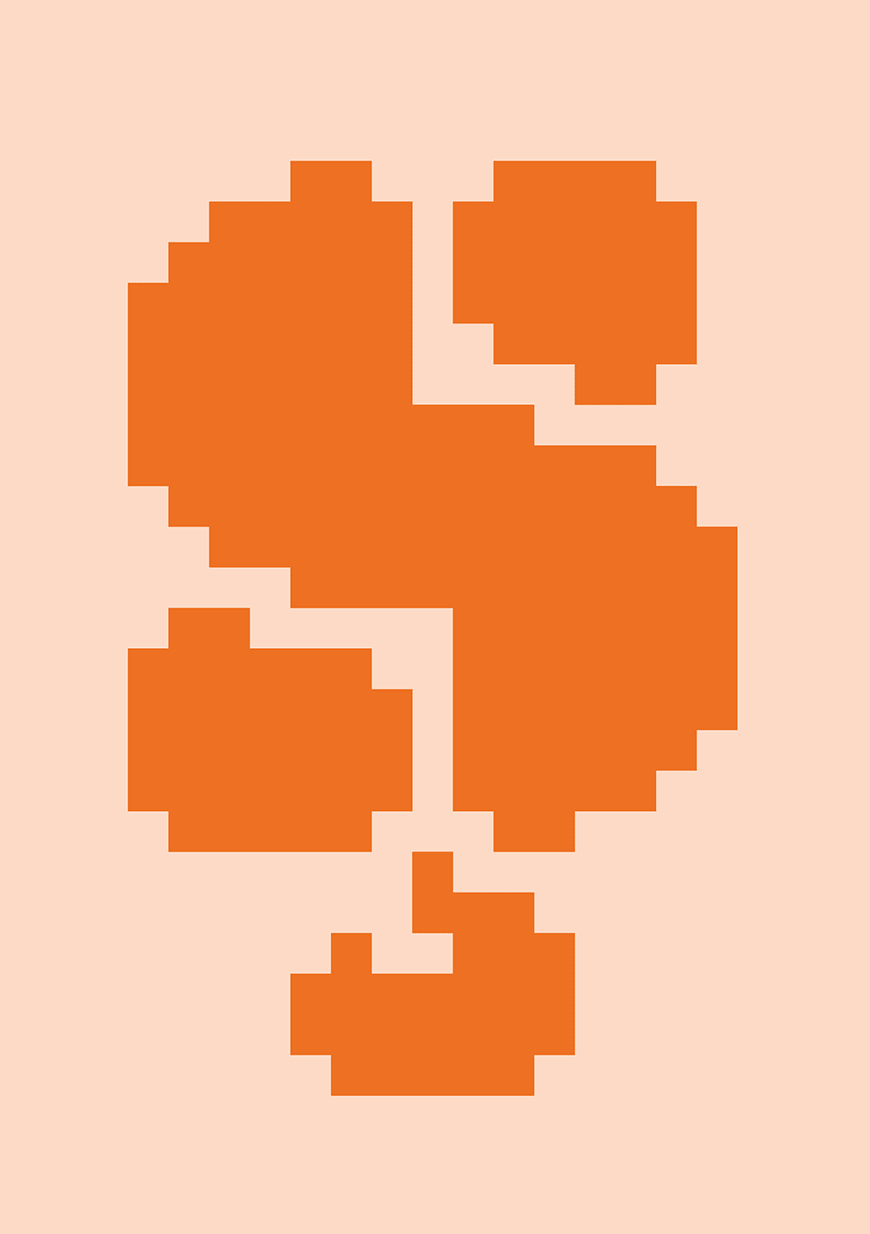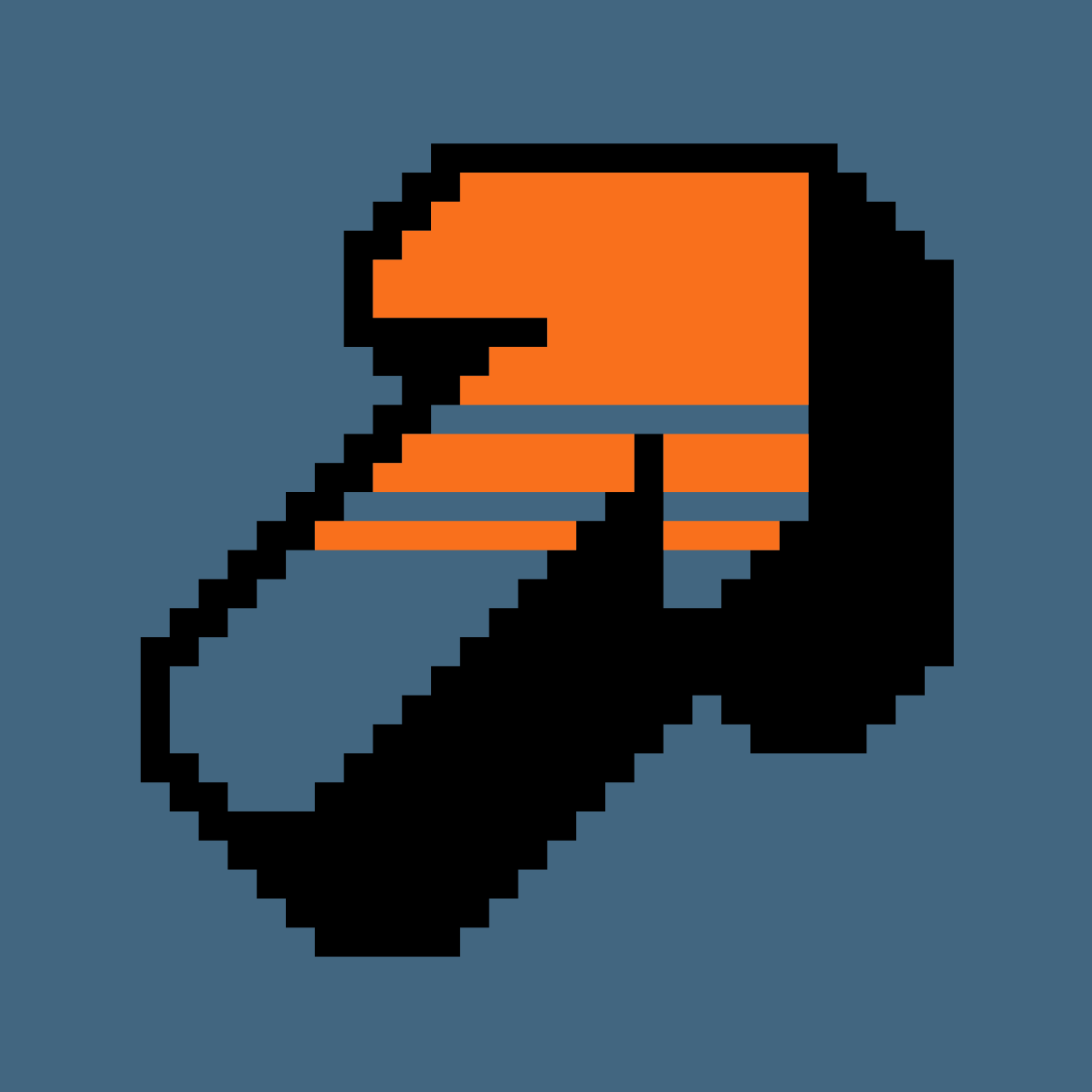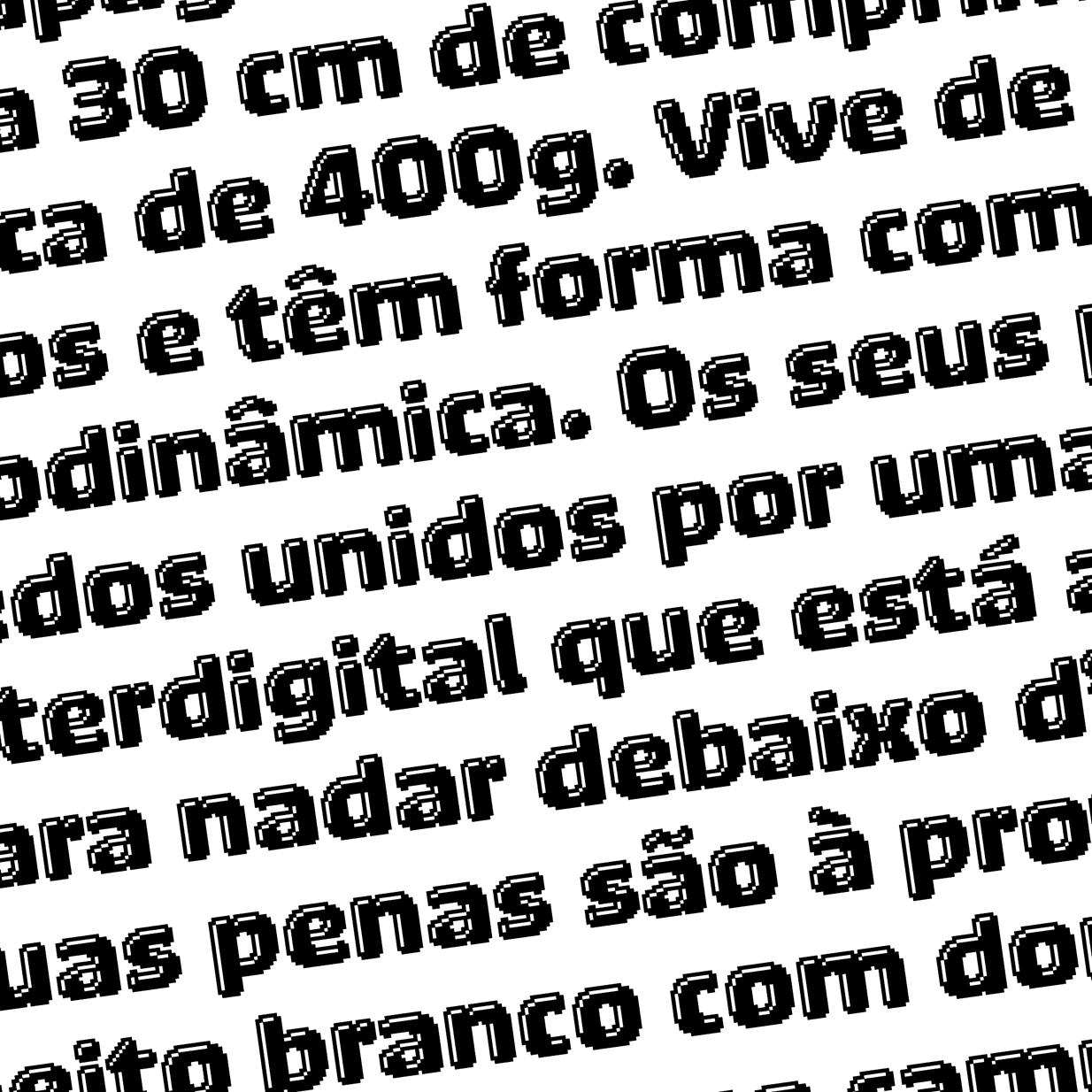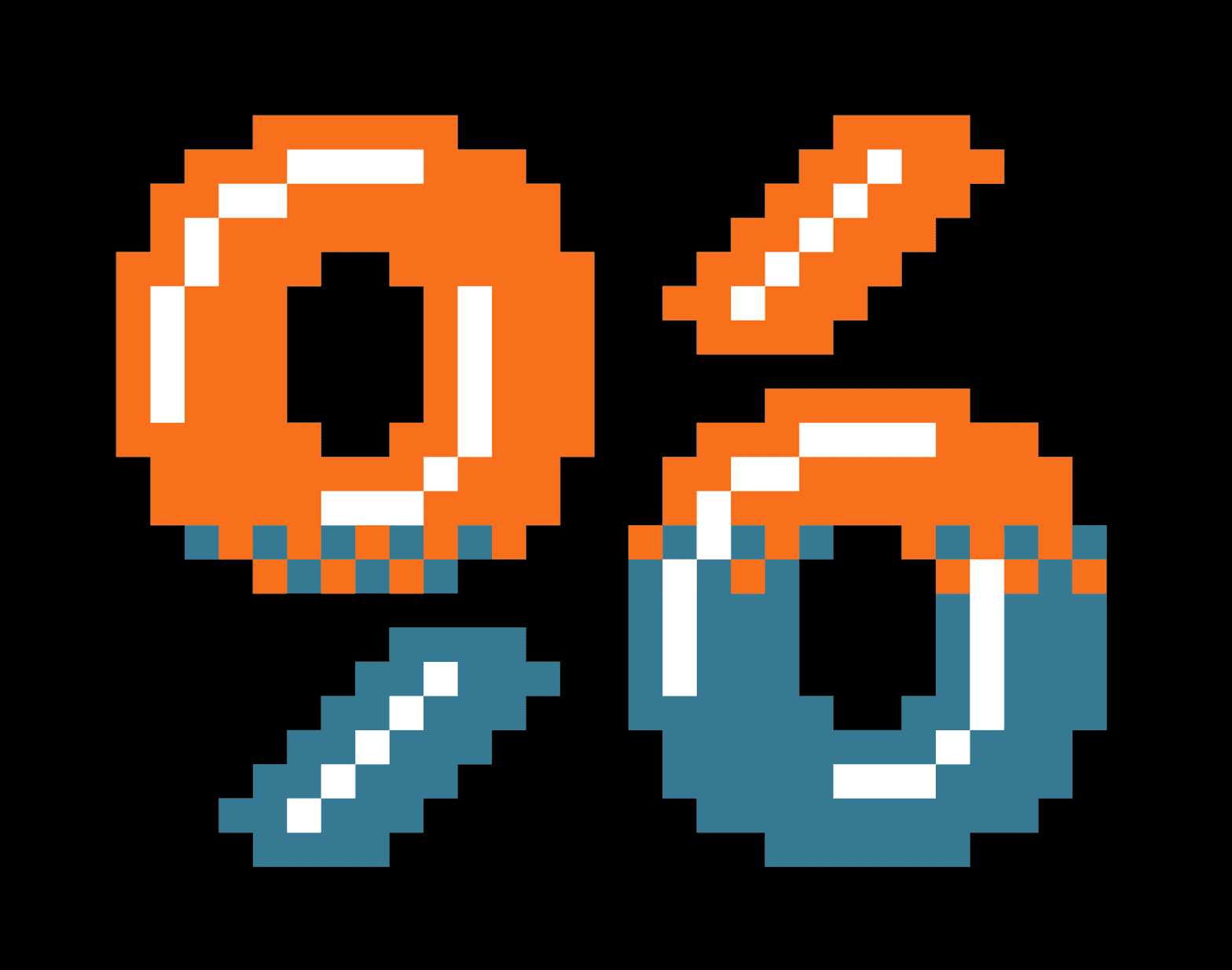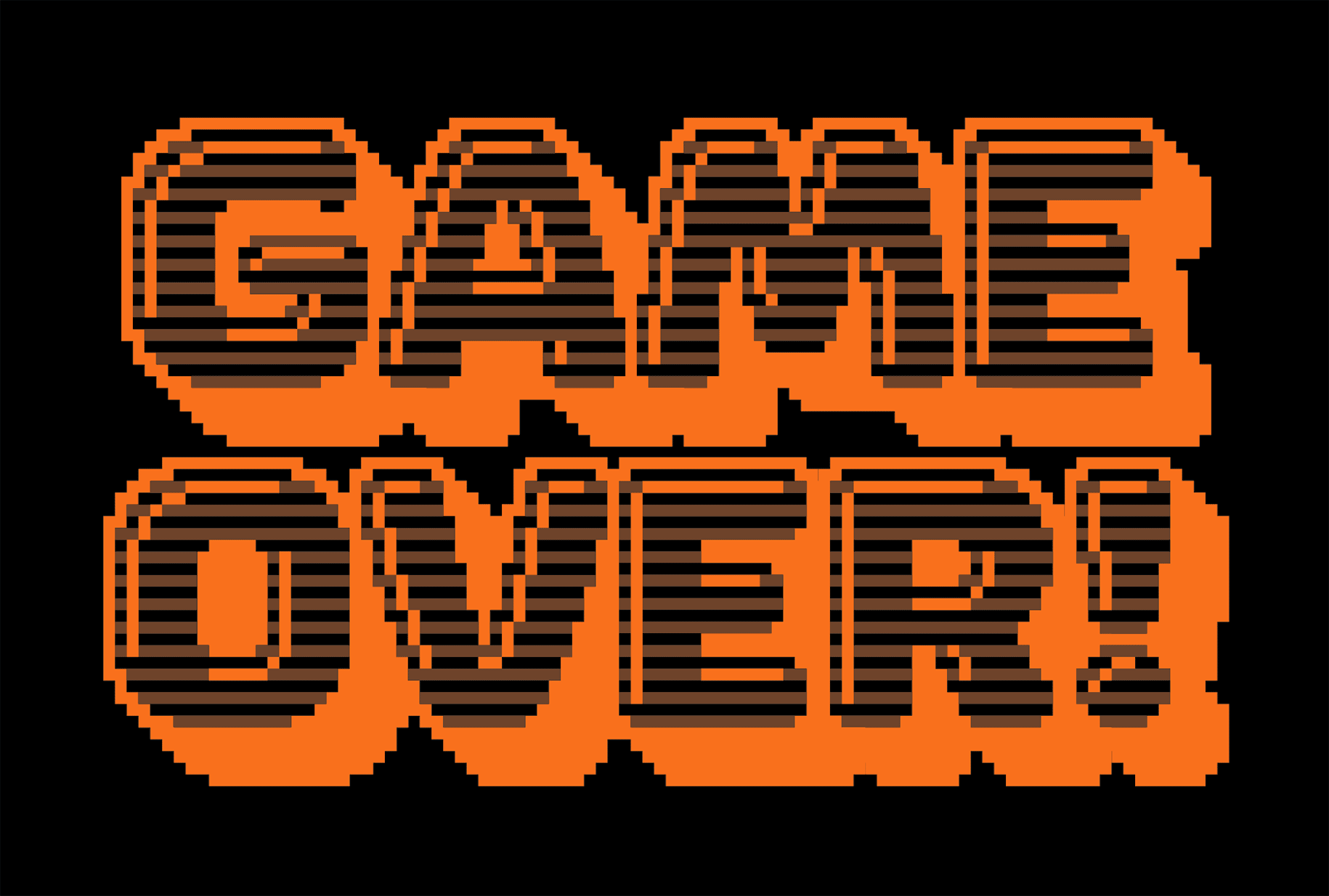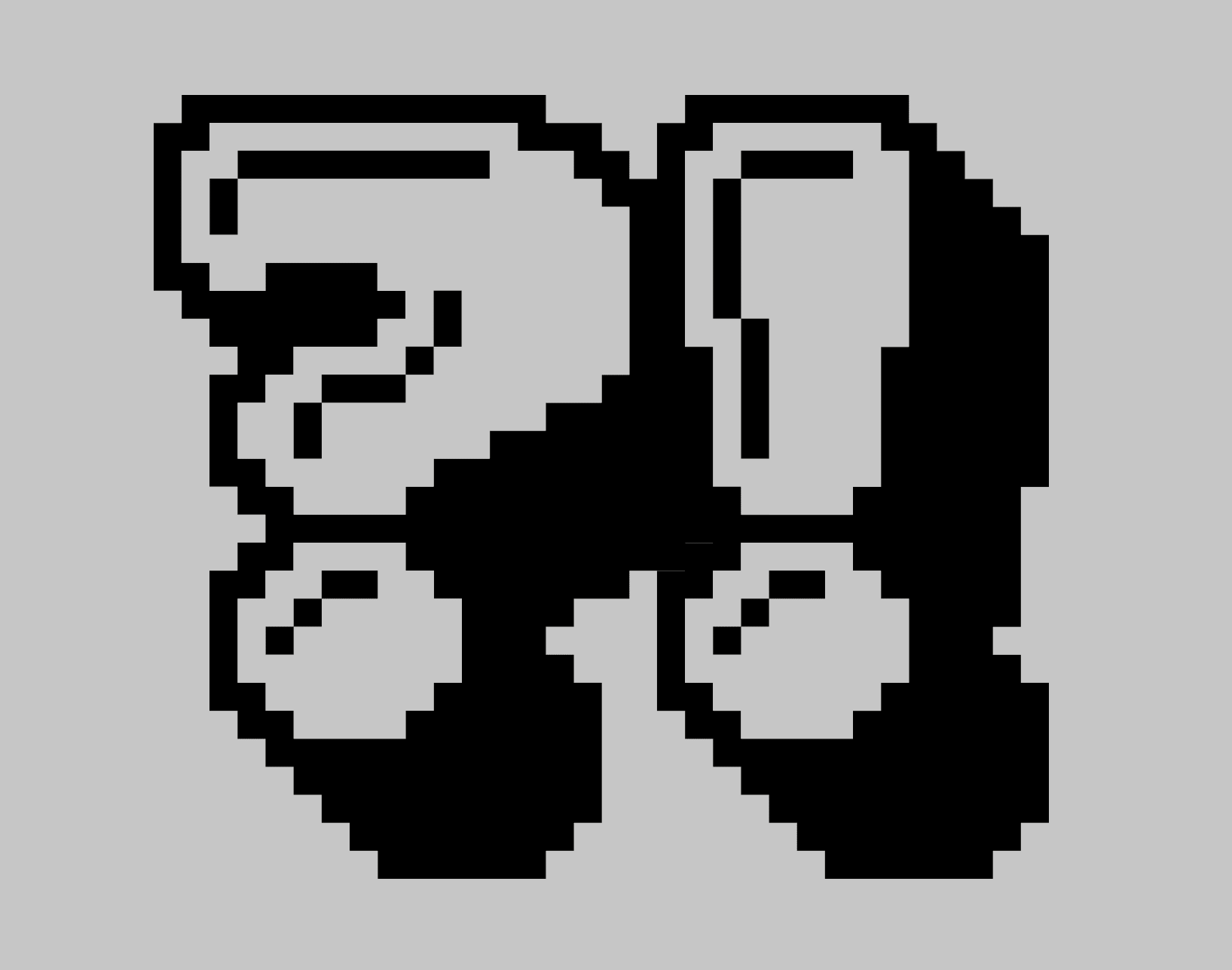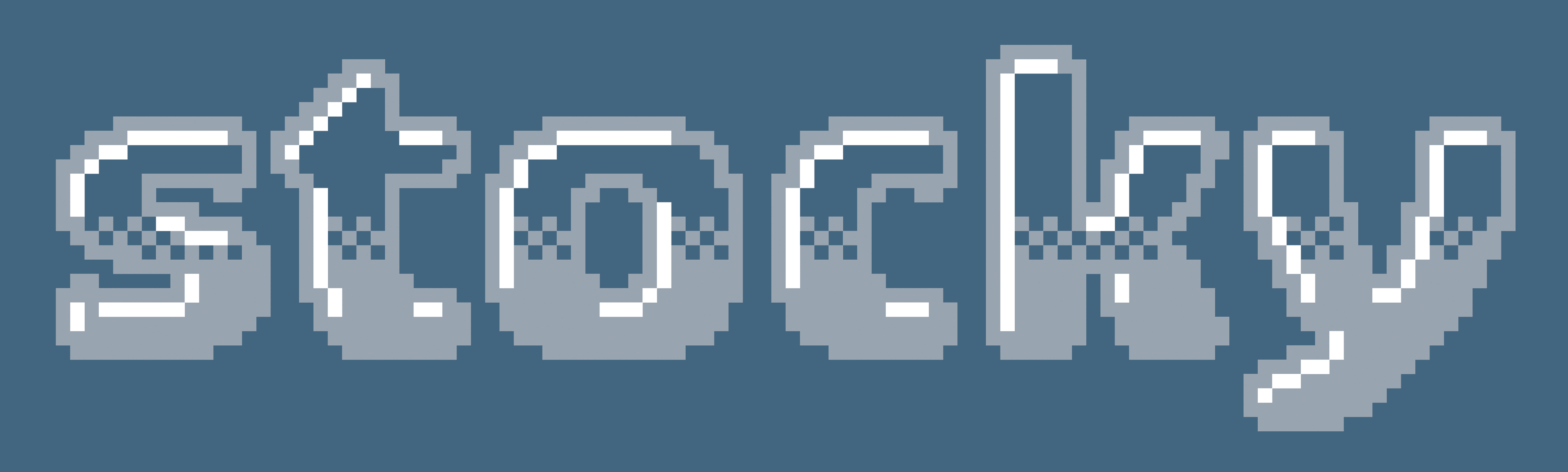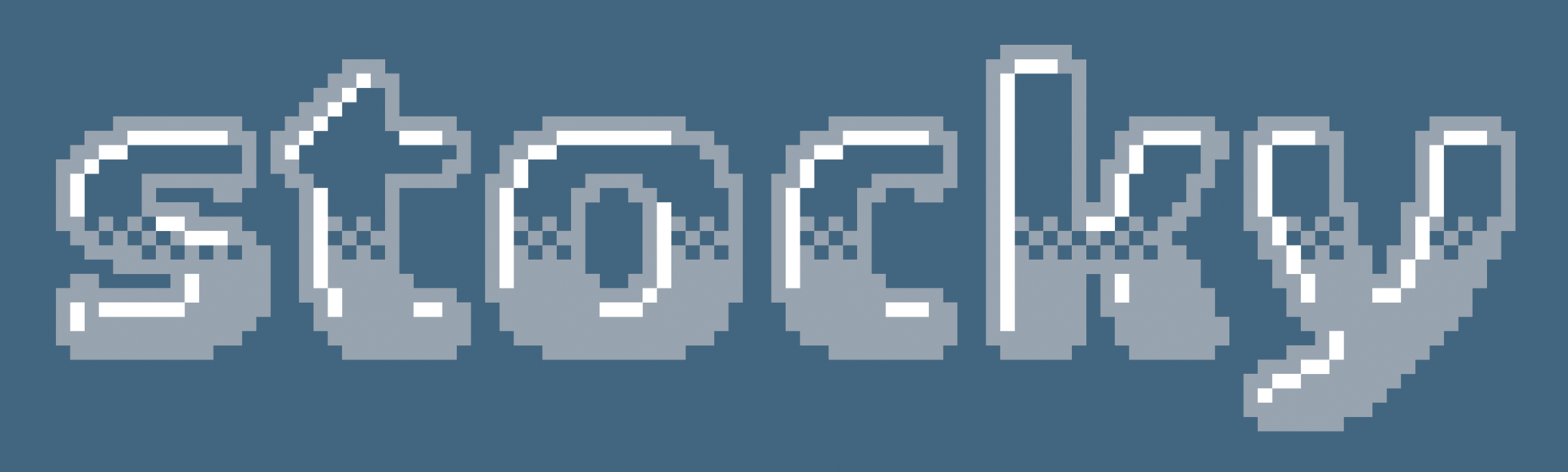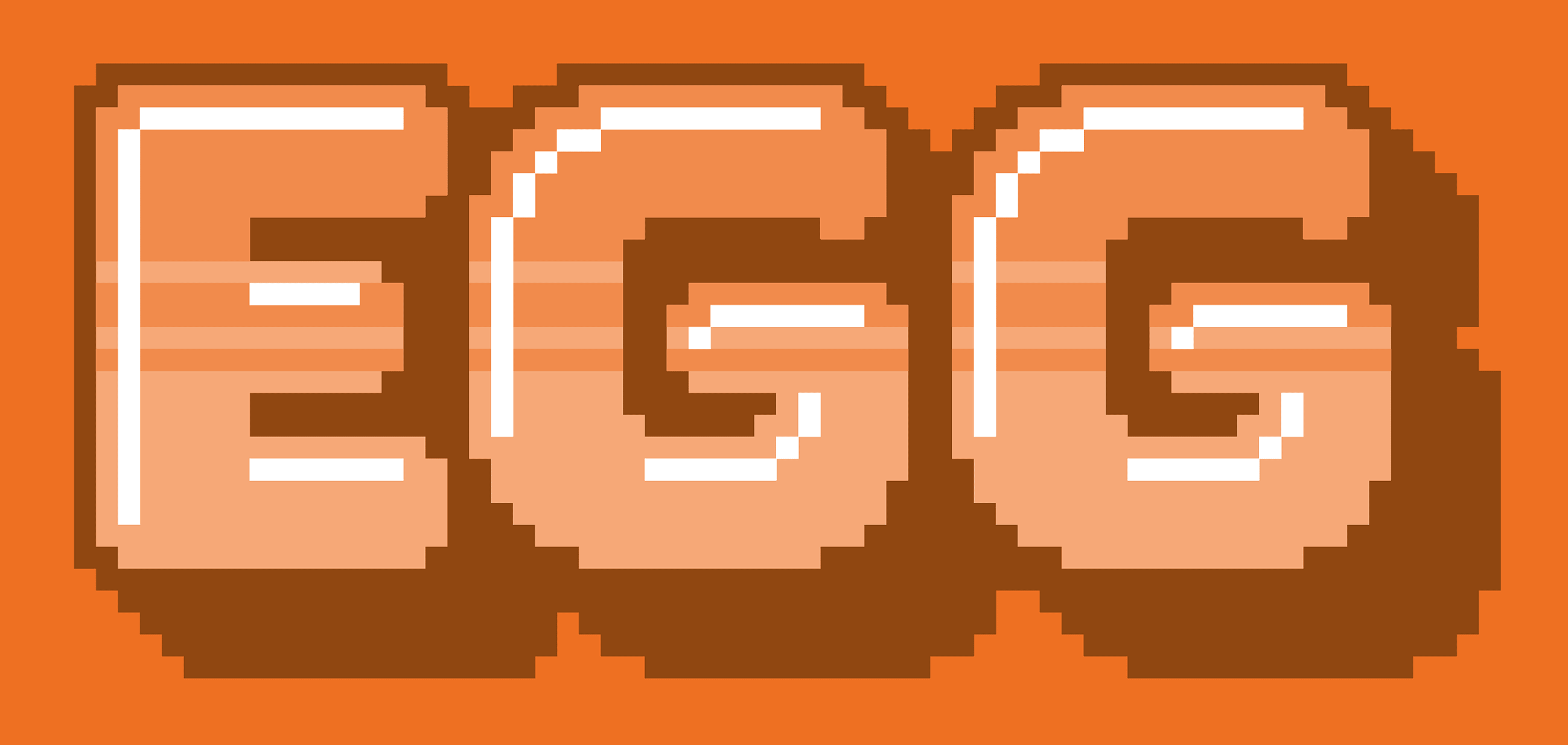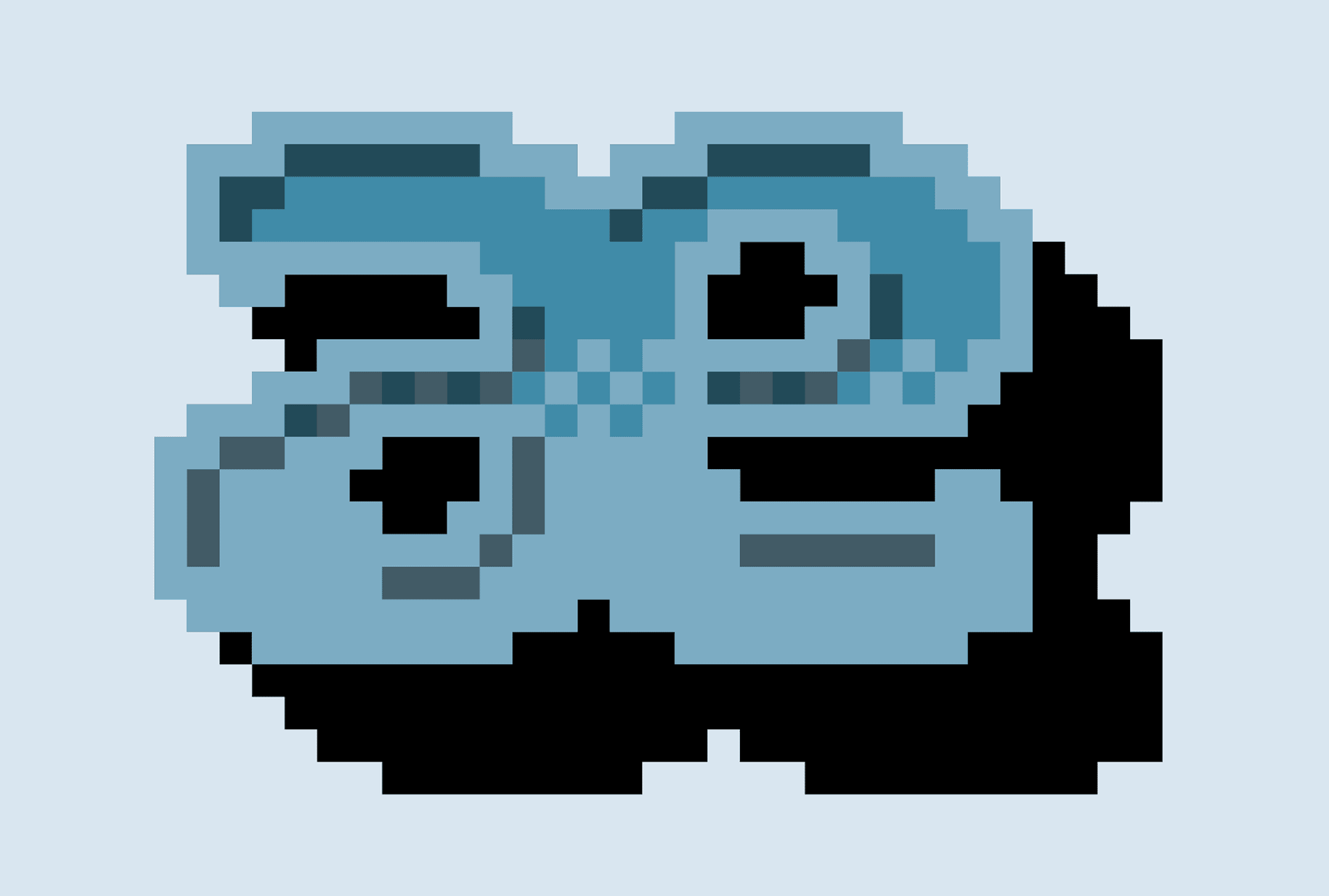
Puffin Arcade
Puffin Arcade is an entertaining family of 12 bitmapped fonts based on the most heavy weight of Puffin Display Soft. Each style has a different design theme, from Dither, the overlapping Nerf style, via Liquid, Warp or Wipe, Yoko or Tate, to Level or Foozle variants.
All individual styles except Foozle can be layered on top of each other for extra effect, basically begging to be used in blinking, flashing and running multi-colour animations. But if you must, you can rein the flock in again and combine it with the calmer Puffin and Puffin Display.
Puffin Arcade is designed with Python help by Frederik Berlaen.
Pieter van Rosmalen